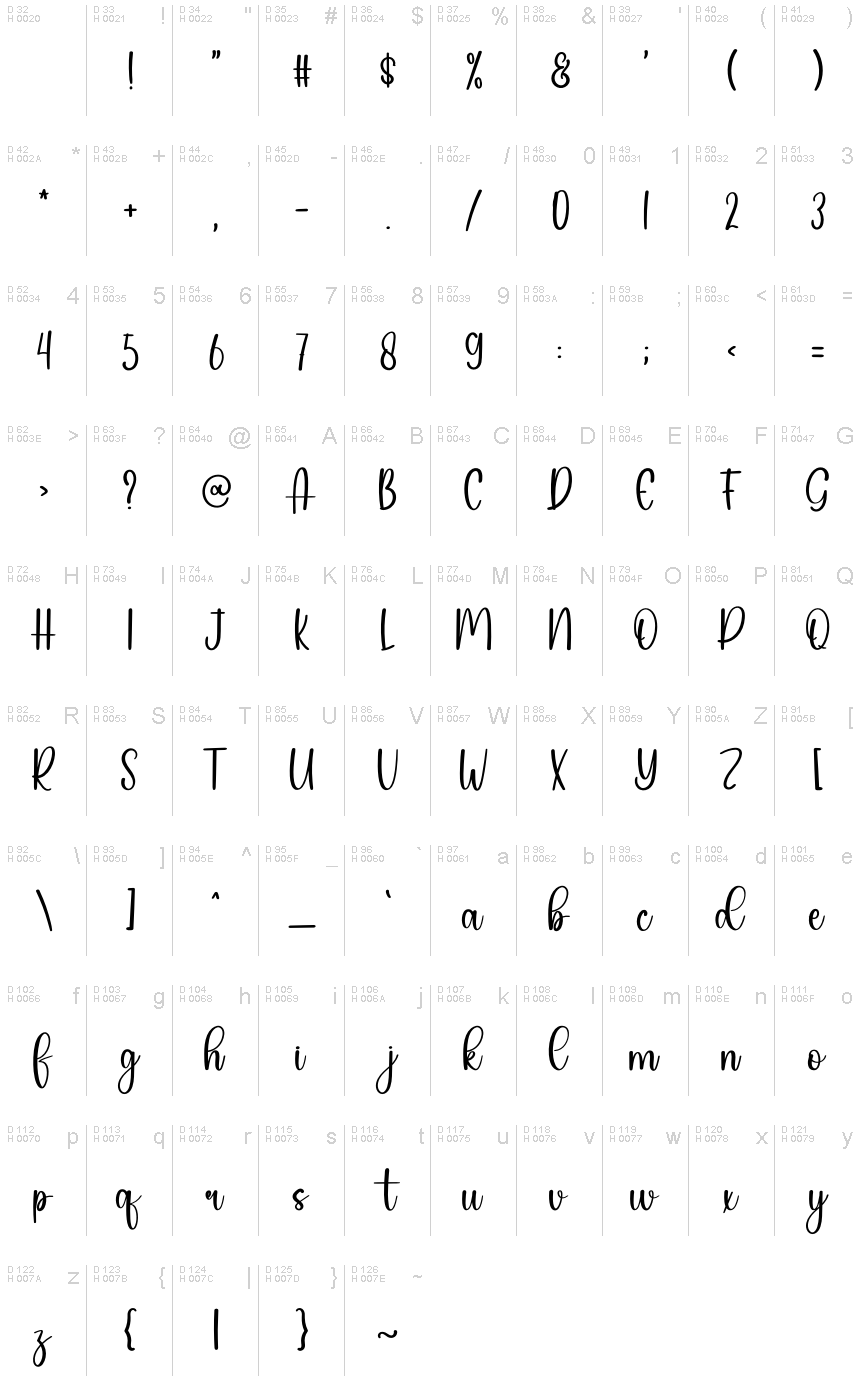
Midday
Midday font, crafted by PiPi Creative, stands out with its graceful handwritten style that captures a sense of elegance and personal touch. The flowing script is perfect for those looking to add a human element to their projects. Its smooth curves and chic aesthetic make it an ideal choice for branding, invitations, or any design seeking warmth and charm.
Embrace the uniqueness of Midday font and elevate your designs with its exquisite handwritten flair.